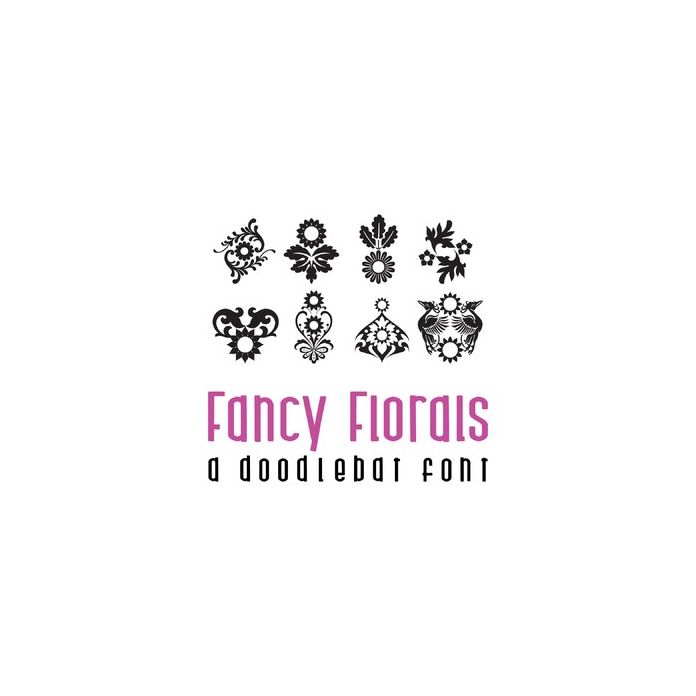
fancy florals doodlebat font
This fun doodlebat font features 26 fancy floral designs. Perfect for cards, gifts, decor, crafts, scrap book pages, planner stickers and more!